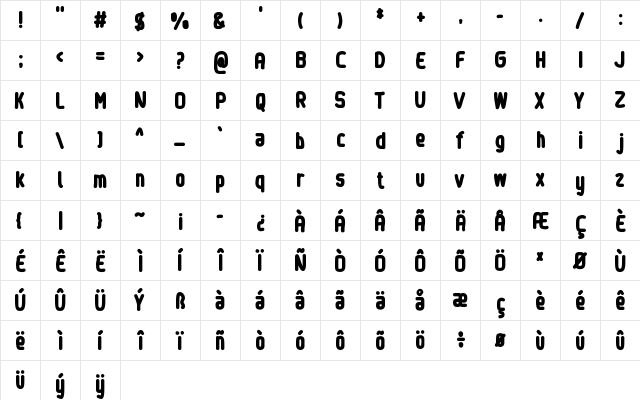
Sinewy - Personal Use Only Regular
| Designer | Md. Shohail Bhuian |
Design Context for Sinewy - Personal Use Only Typeface
Sinewy - Personal Use Only is a composed and adaptable typeface that performs quietly and consistently across a wide range of design contexts.